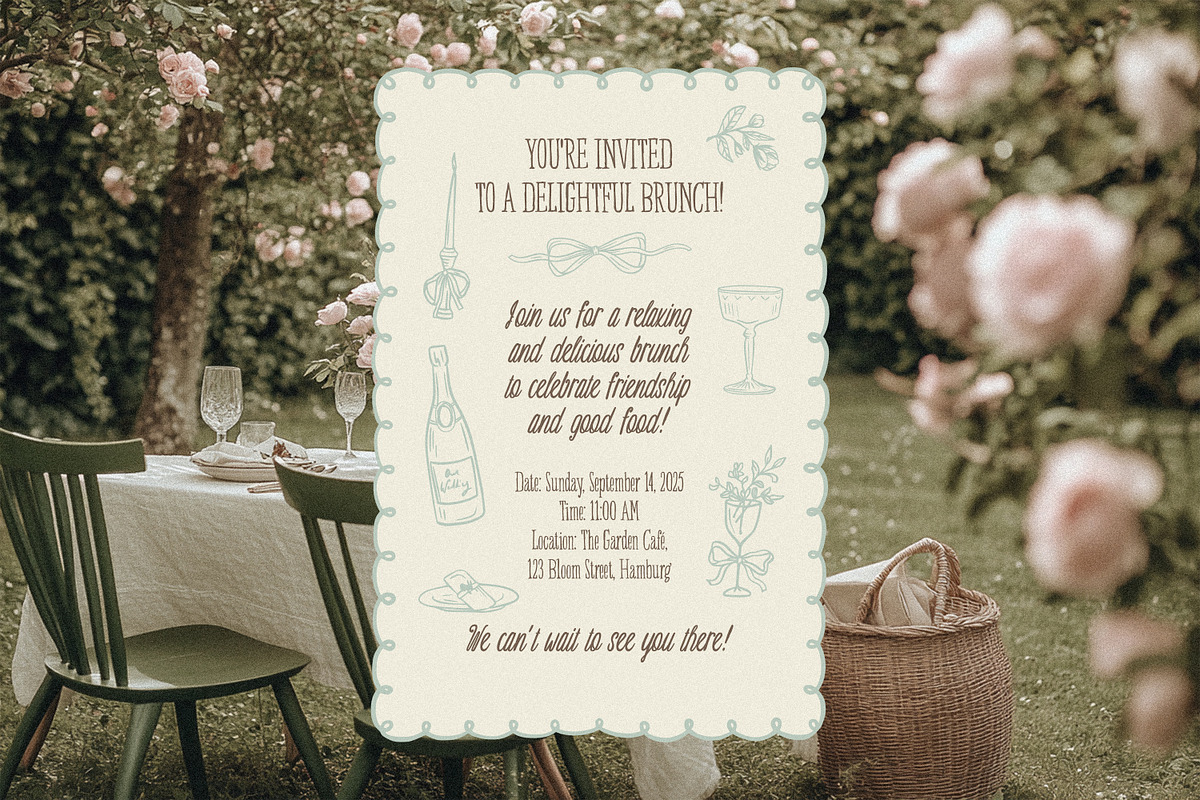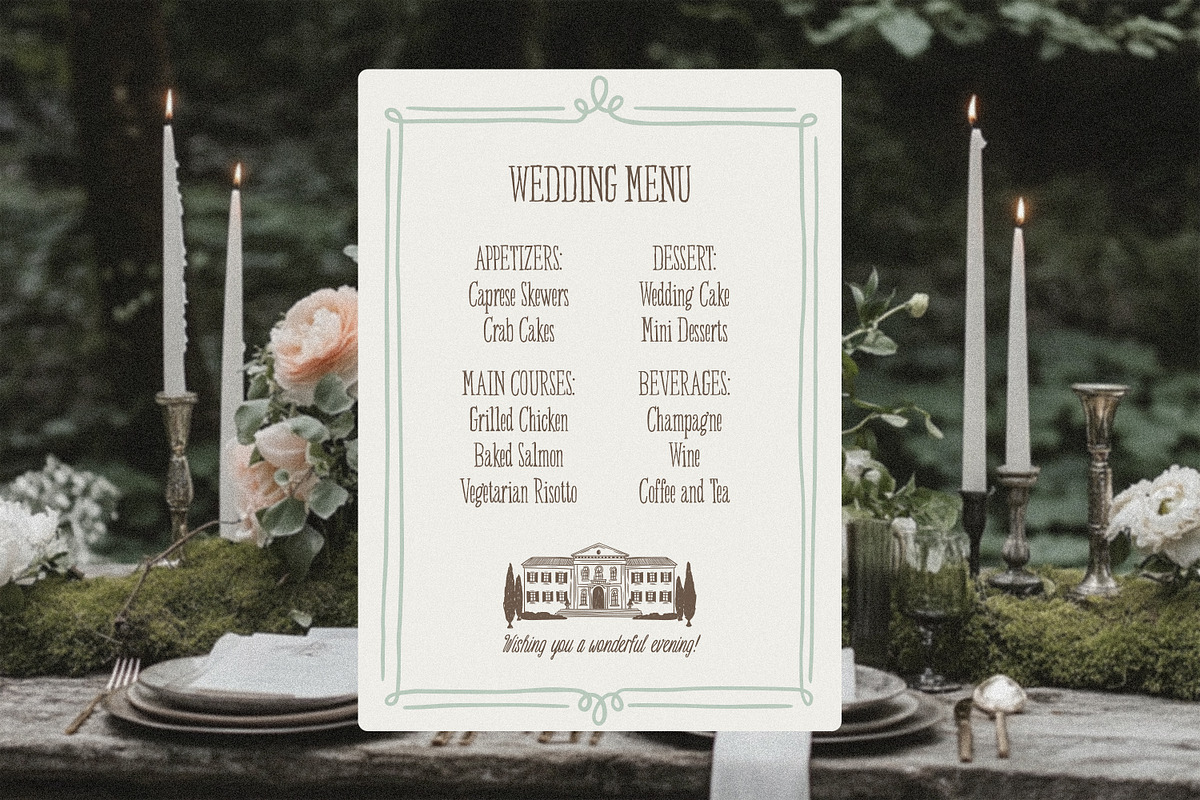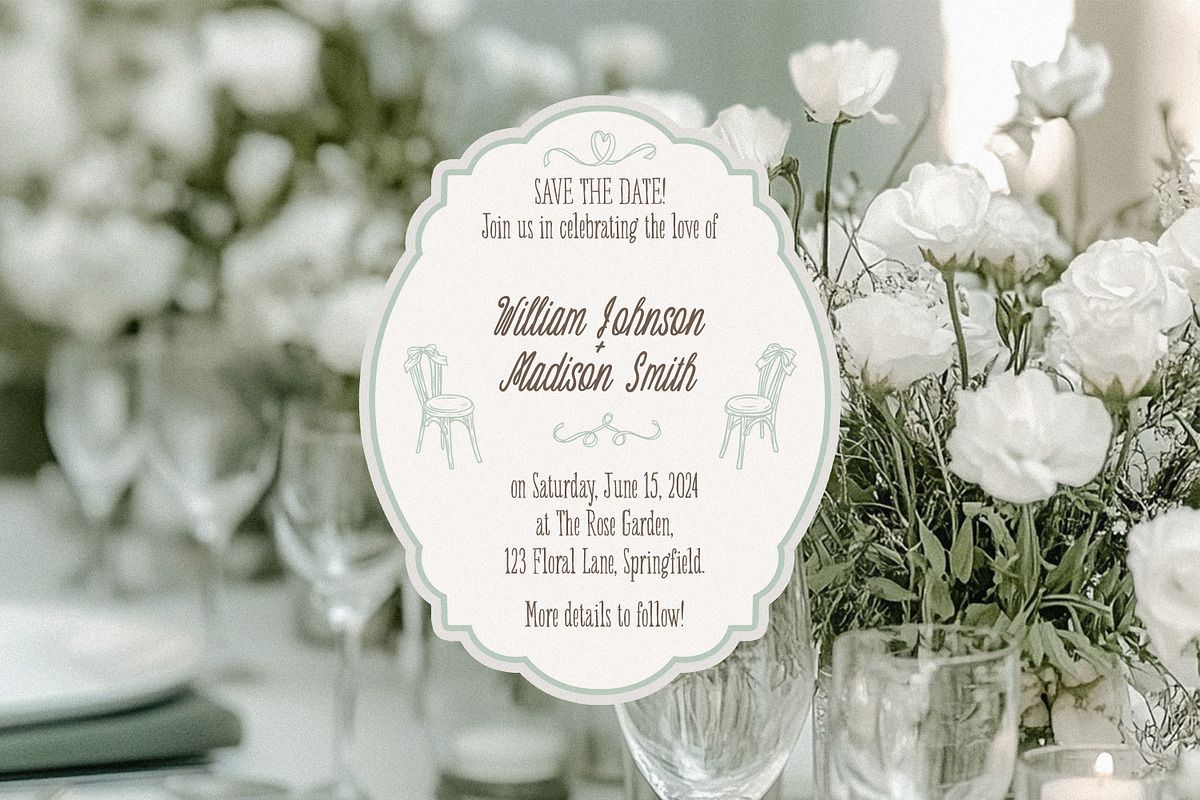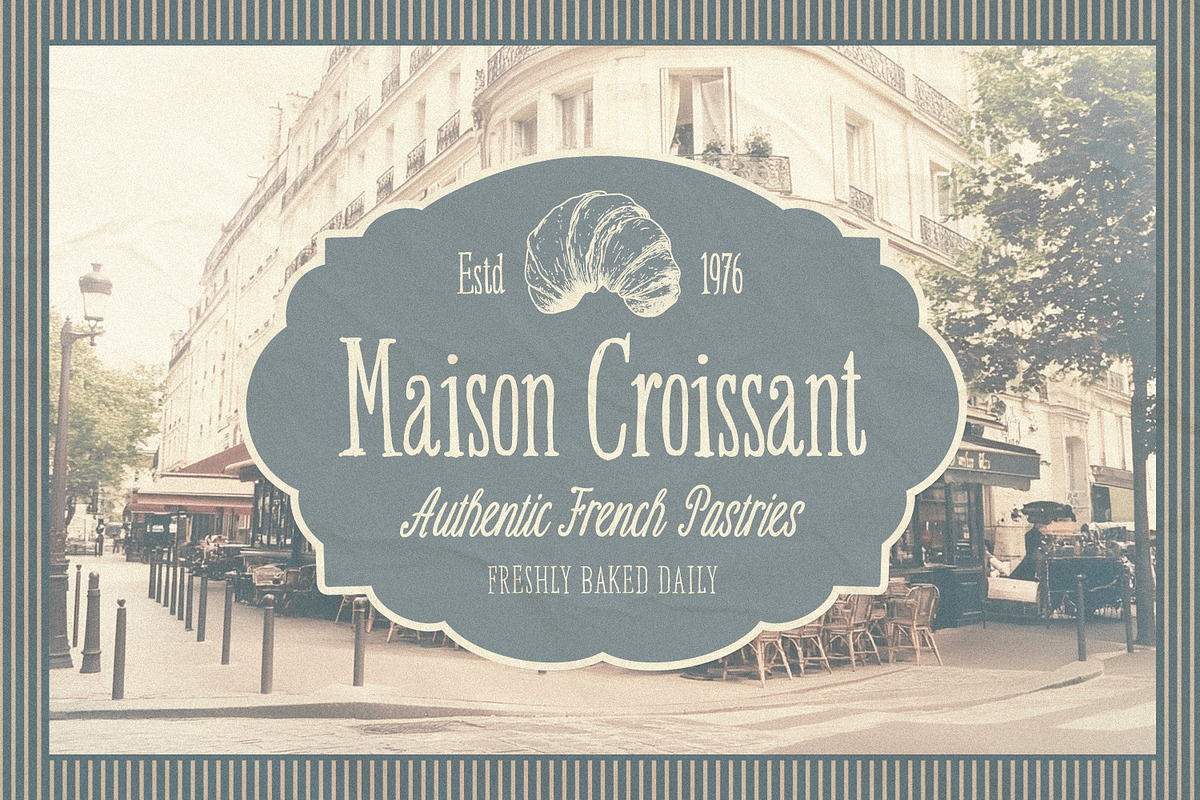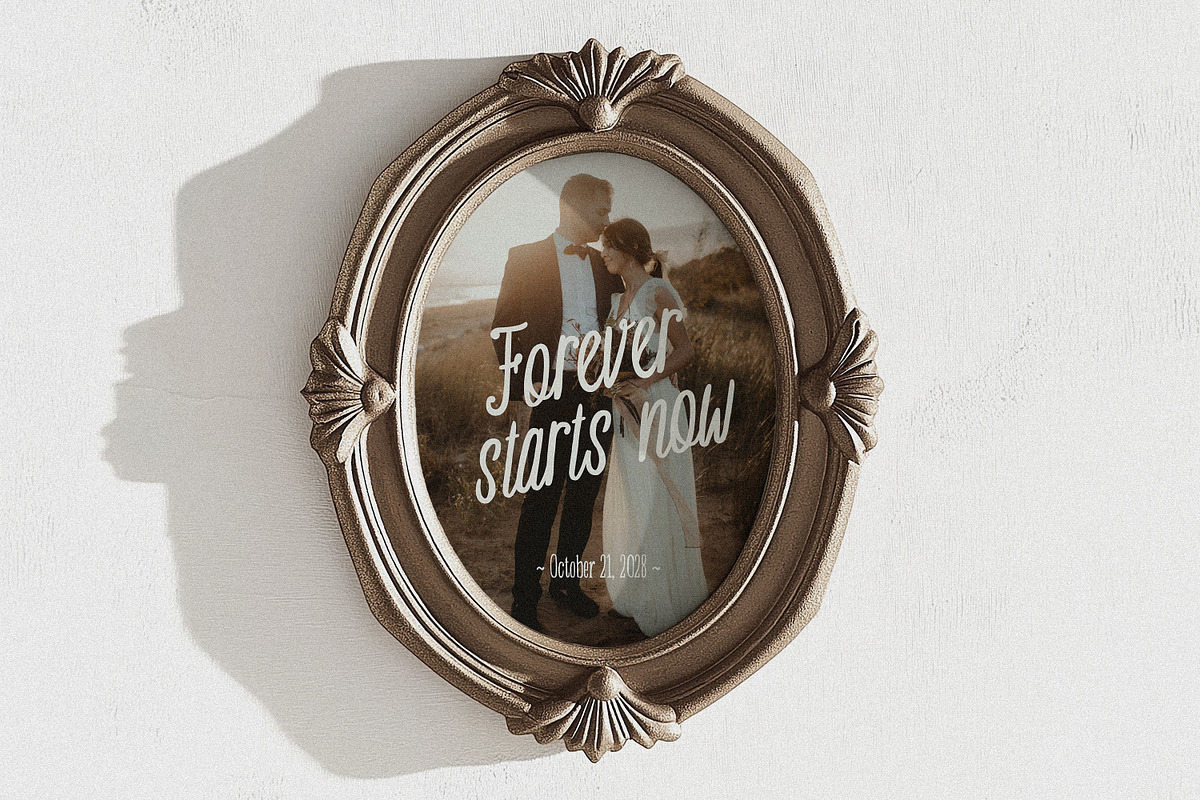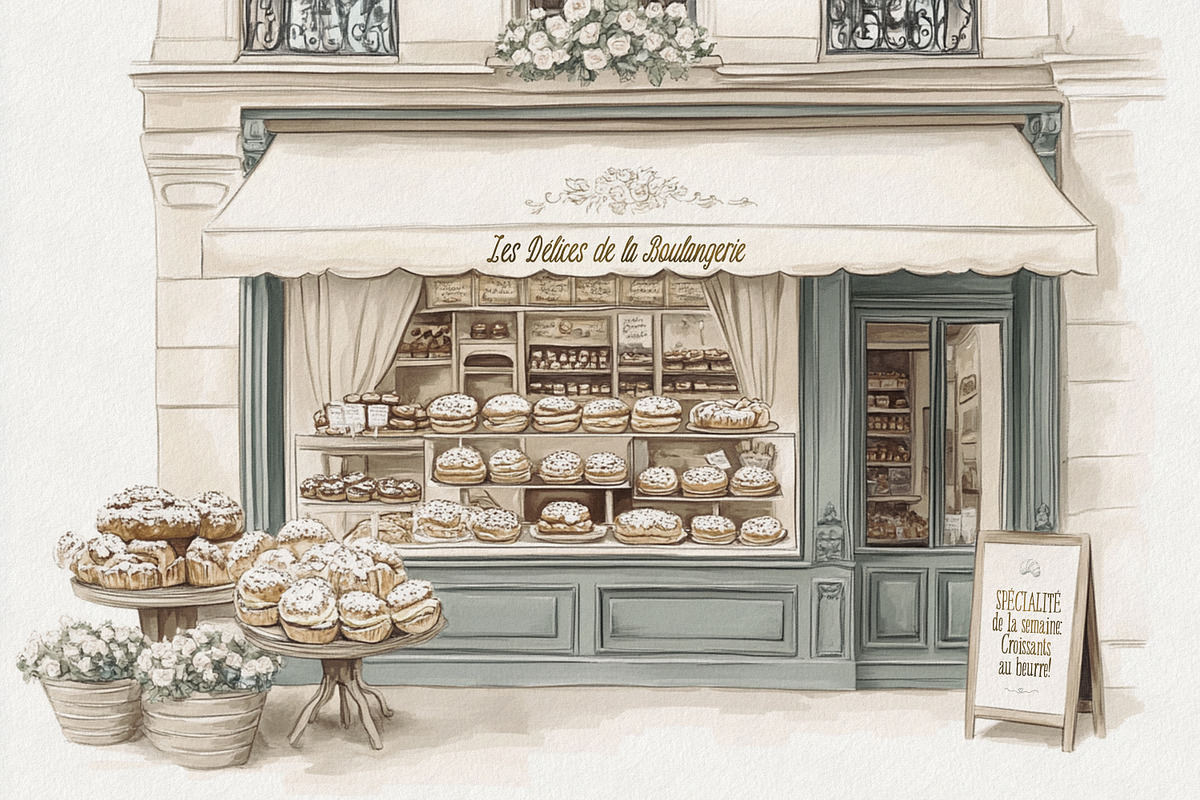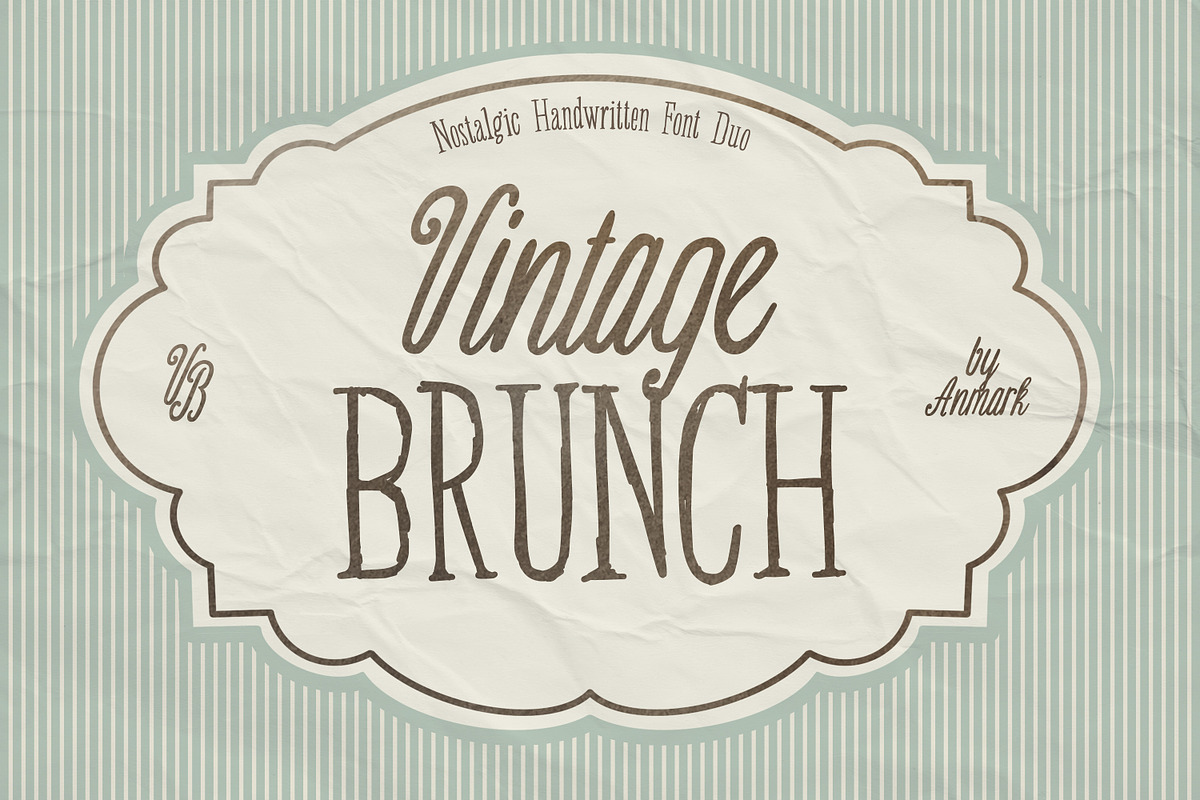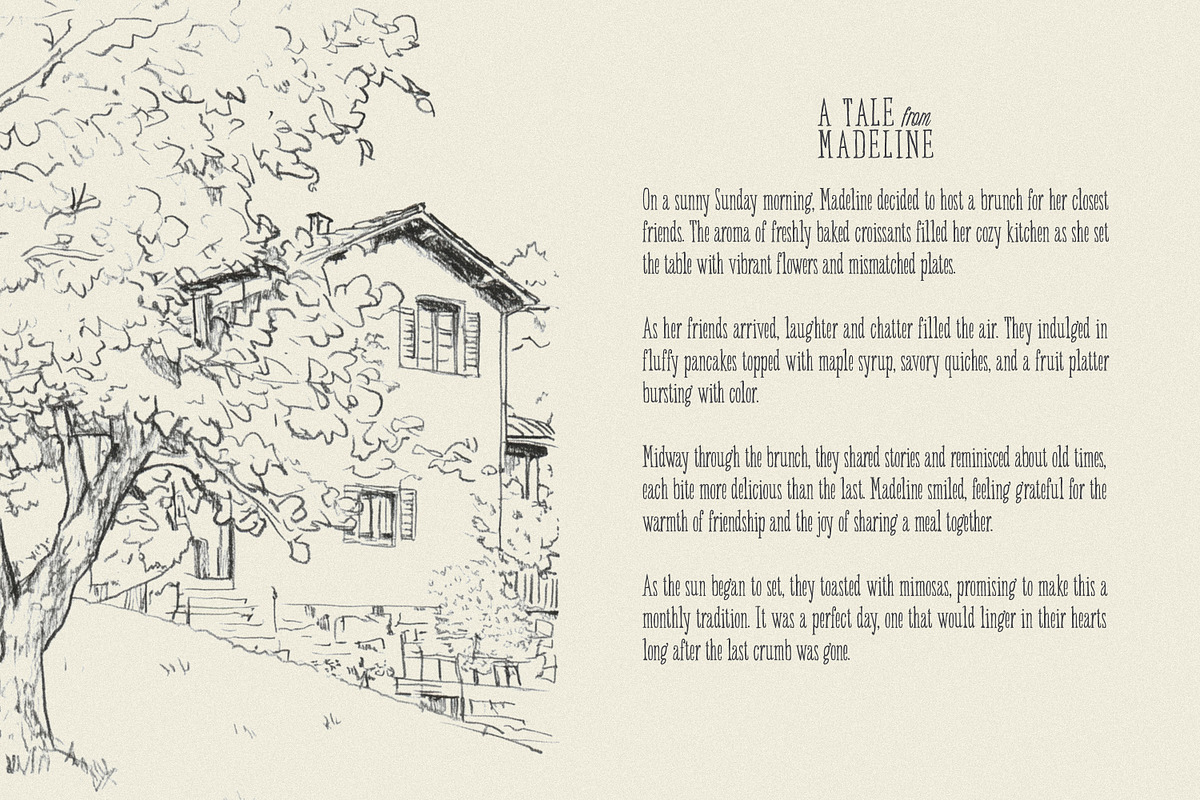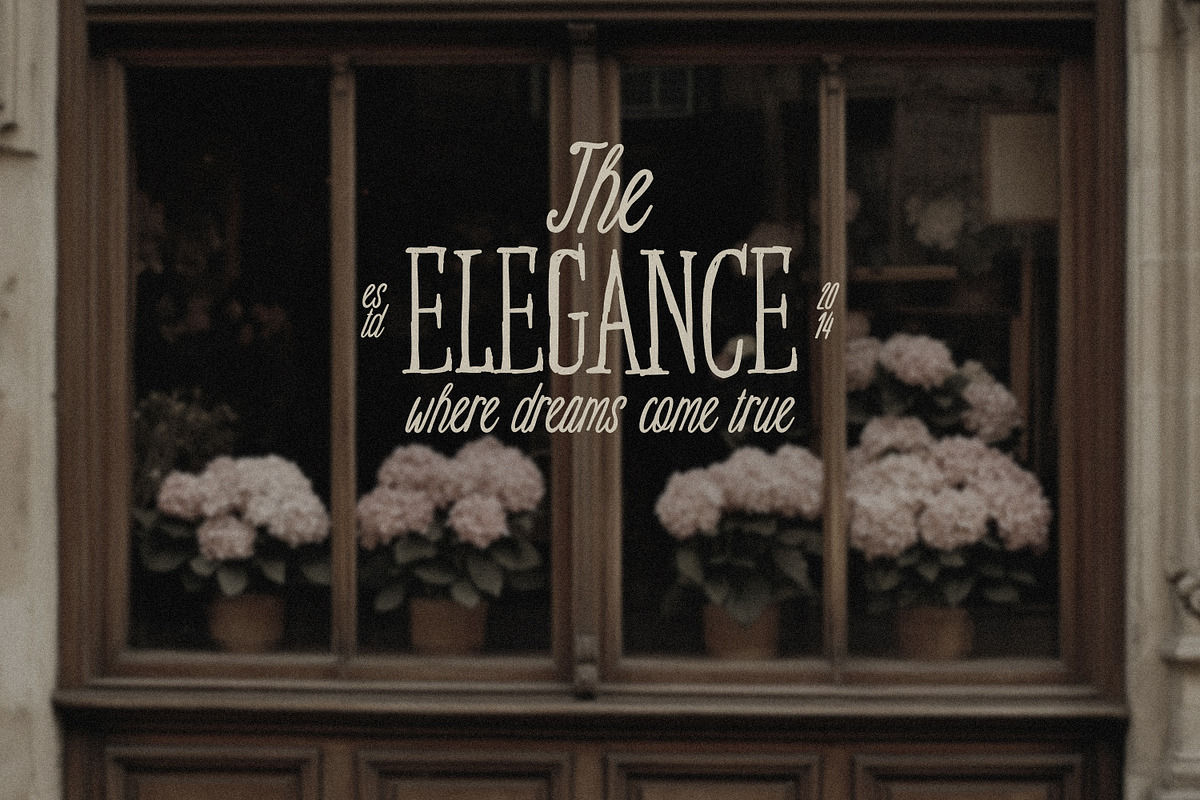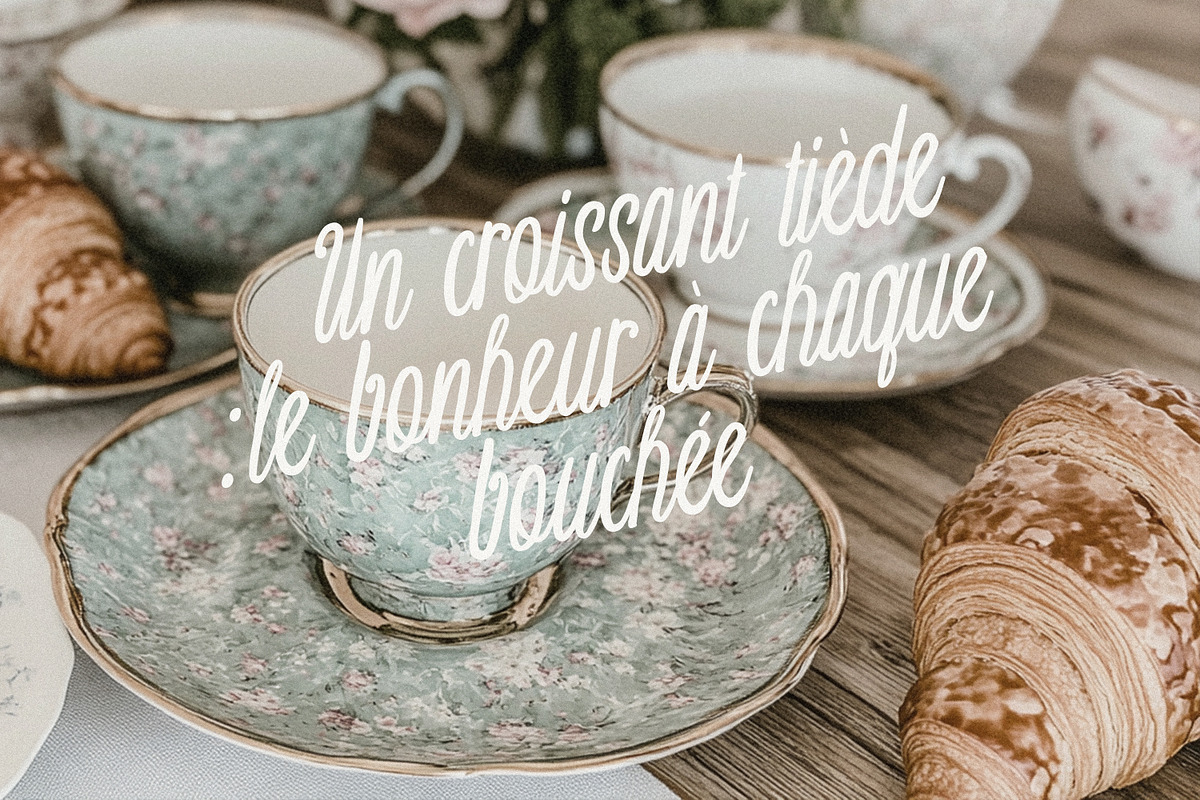
Vintage Brunch - Retro Font Duo
Vintage Brunch Handwritten Retro Font Duo is a charming combination of a vintage-inspired serif and an elegant handwritten script, designed to bring a nostalgic and timeless feel to your projects. Vintage Brunch regular (serif) features delicate, hand-drawn details with a rustic yet refined touch, perfect for adding character to branding, packaging, and editorial designs. The script font is fluid and graceful, evoking the charm of handwritten café menus, retro signage, and classic wedding invitations. Together, they create a harmonious pairing that is ideal for logos, restaurant menus, wedding stationery, product labels, social media graphics, and more.
Vintage Brunch includes extended Latin support, making it compatible with multiple European languages such as English, French, German, Spanish, Italian, Portuguese, Swedish, Danish, Dutch etc.